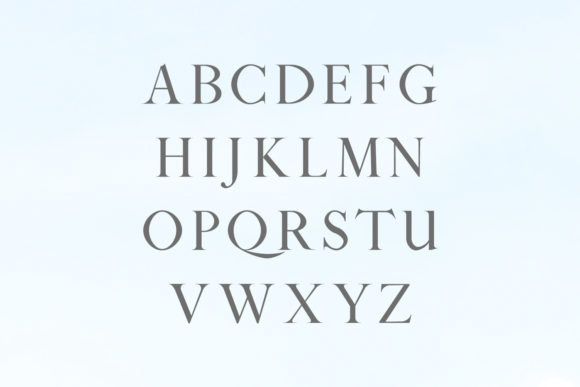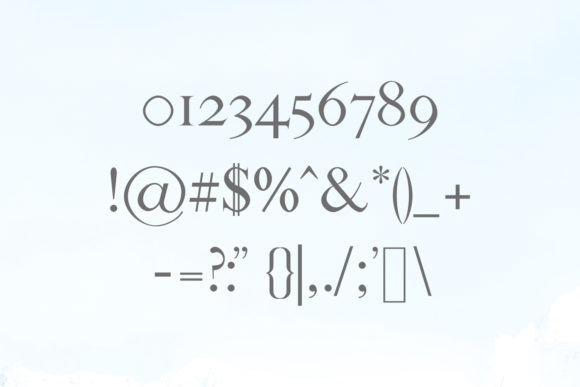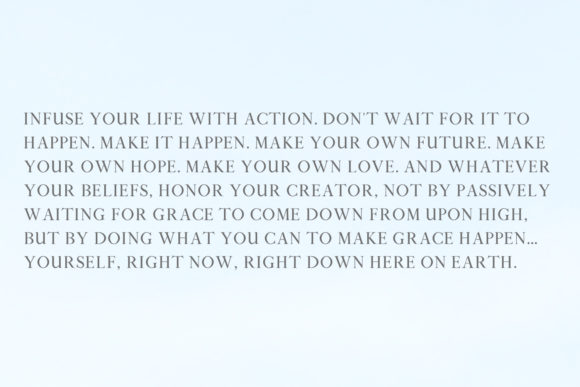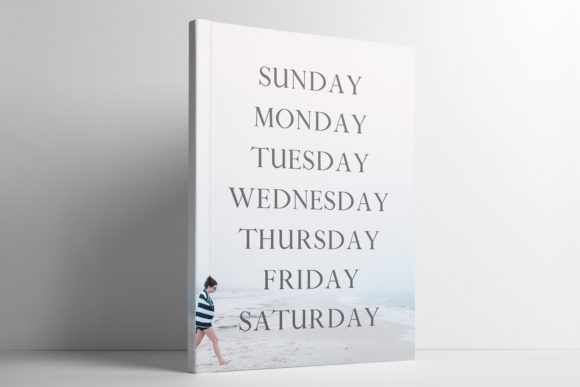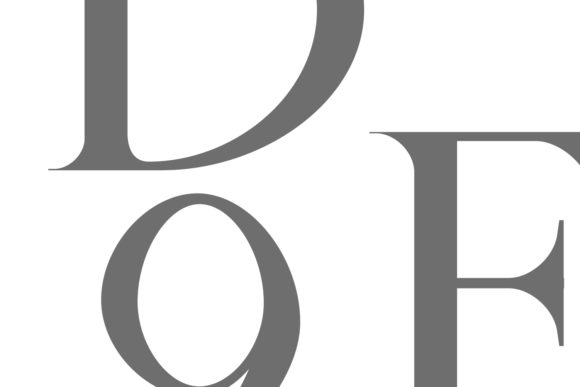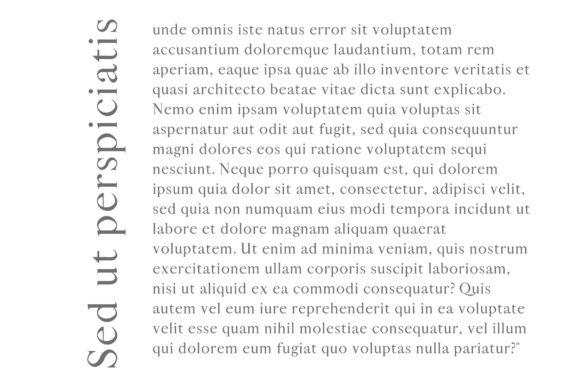
Introduction to Sandover Family Font Font
Fonts play a crucial role in design, and the Sandover Family Font font is a typeface that brings both character and versatility to any project. Whether you’re working on a branding project, a website, or a print design, the Sandover Family Font font offers a unique style that can elevate your work.
The Sandover is a beautiful serif family.
It contains 5 unique weights which gives you the opportunity to create multiple unique designs with just this one family It can be used for headlines, posters, branding, packaging, presentations, logo, quotes, titles, magazines headings, web layouts, advertising, invitations, packaging design, books, and nearly any other creative design.
Key Features of Sandover Family Font Font
Why Choose Sandover Family Font Font?
The Sandover Family Font font is more than just a typeface – it’s a design tool that helps you communicate your message with style and clarity. Its unique character set and versatile design make it suitable for a wide range of applications, from elegant invitations to bold headlines.
With its carefully crafted letterforms and balanced proportions, the Sandover Family Font font ensures readability and visual appeal across all mediums.
What makes Sandover Family Font font special?
The Sandover Family Font font stands out with its unique design, exceptional readability, and versatility across various design applications.